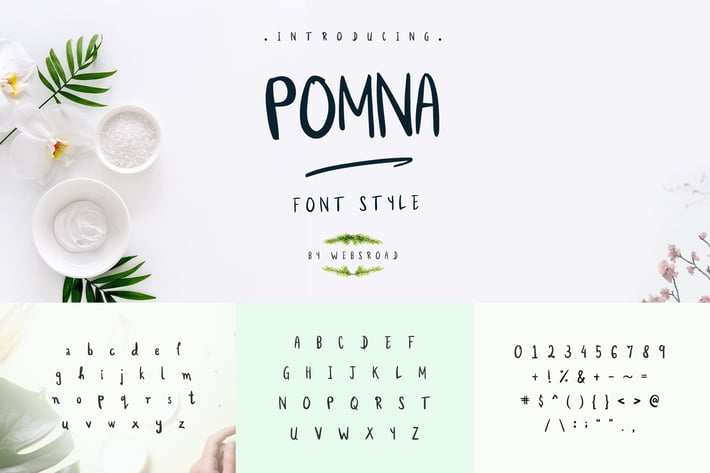
Pomna - Custom Handmade Font Style
websroad
A gentle and modern display typeface. Available in one weights, Pomna is best suited for headlines, posters, titles and captions. It features a huge range of weights and widths, ready for all kind of typographic challenges.